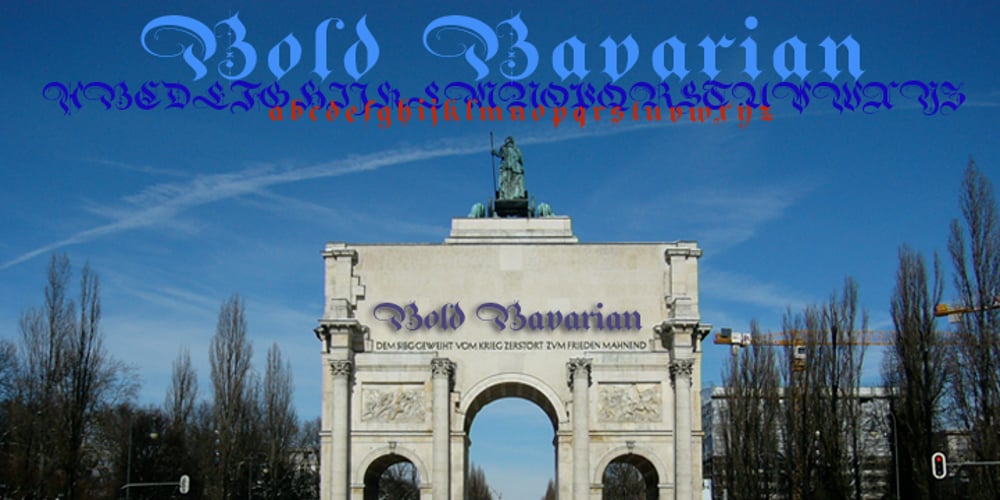
Bold Bavarian
Bold Bavarian font
Bold Bavarian Font Family was designed by Gert Wiescher and published by Wiescher Design. Bold Bavarian contains 1 styles and family package options. Bold Bavarian is a heavy version of my Royal Bavarian that was commissioned by King Ludwig 1st of Bavaria about 1834. I always thought, that I should design a really bold version and now finally I did. But I think it should not be mixed together with the normal version. Your lover of Blackletter typefaces, Gert Wiescher